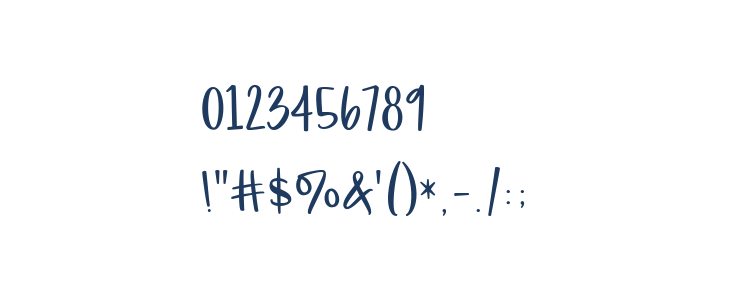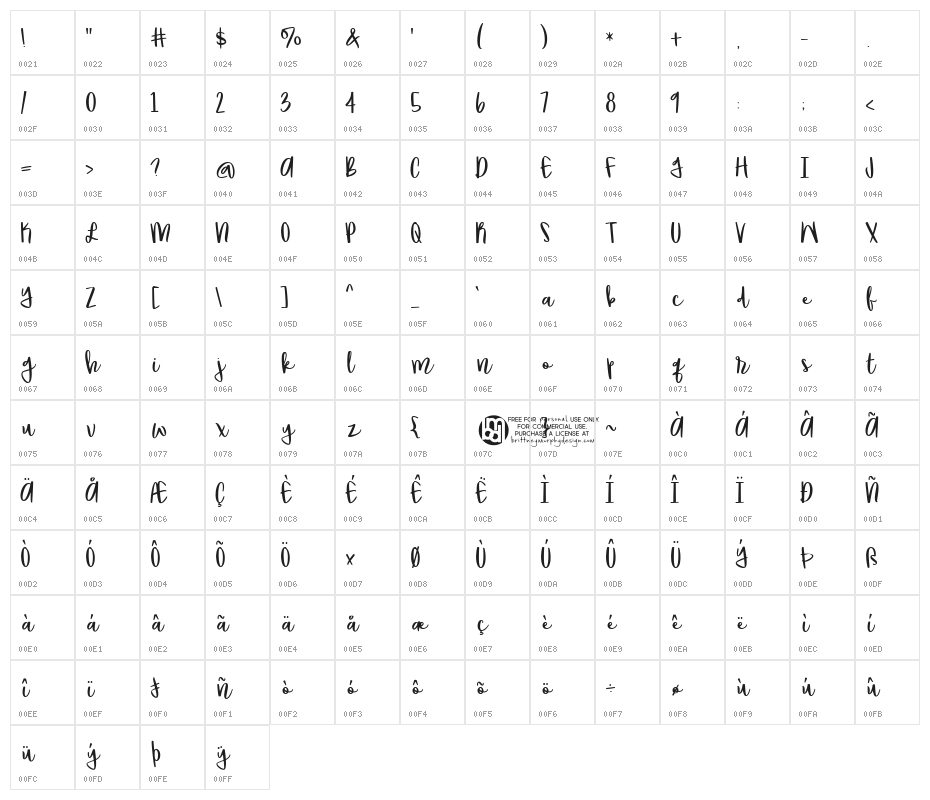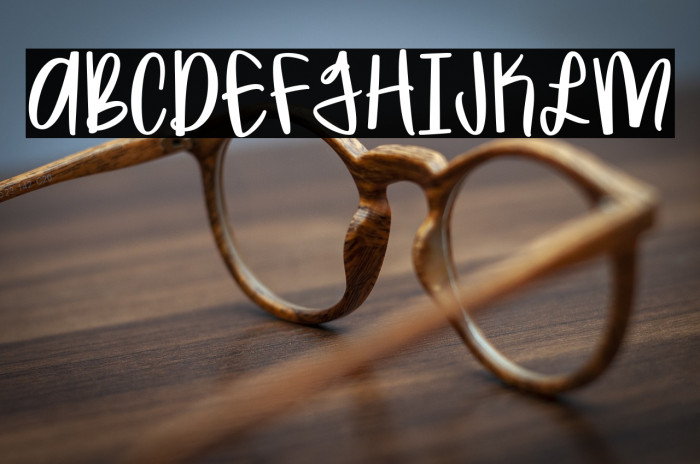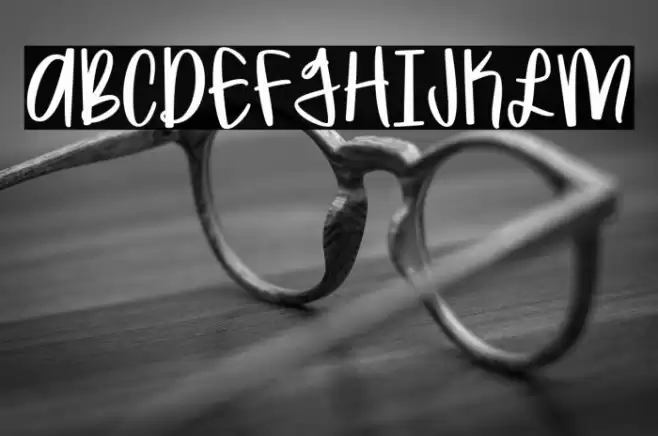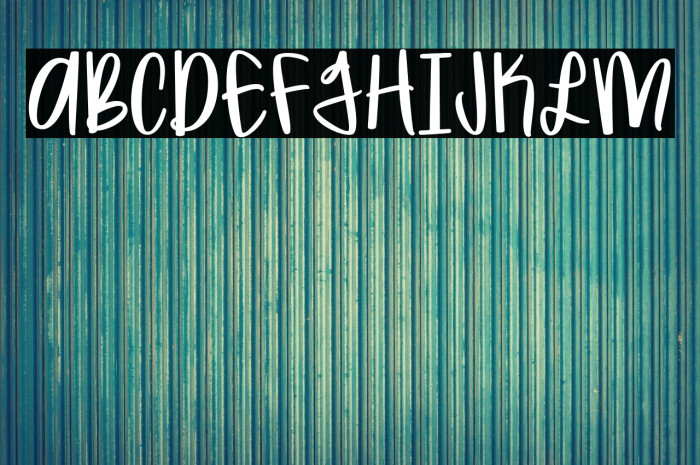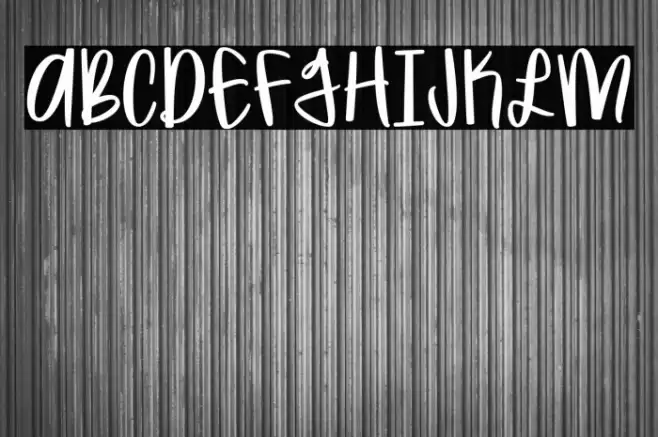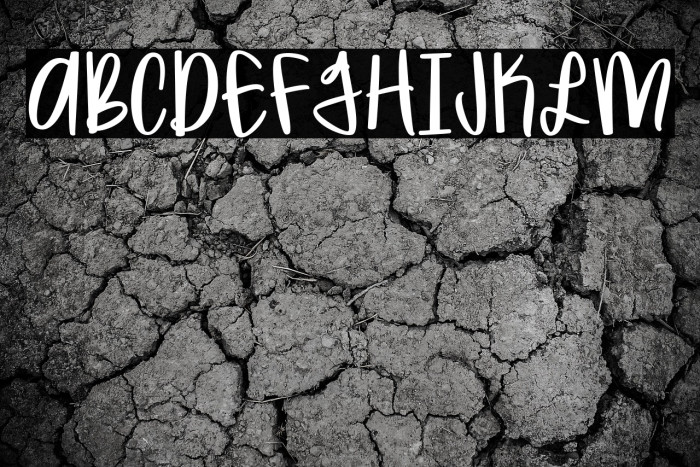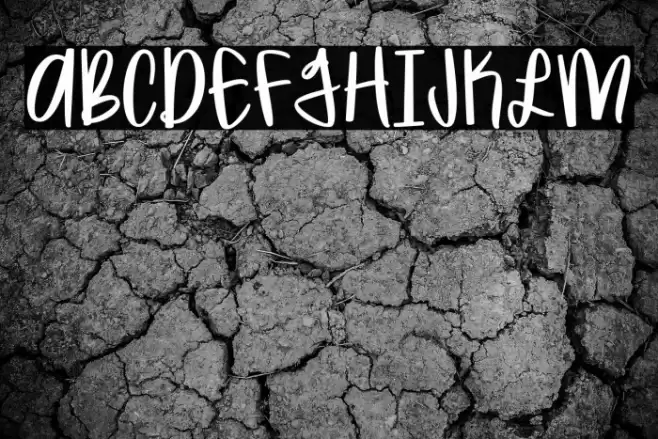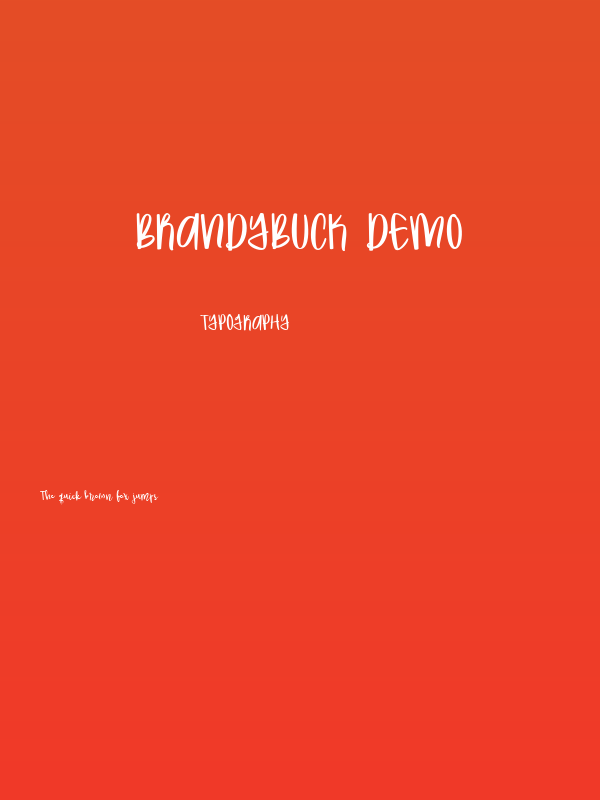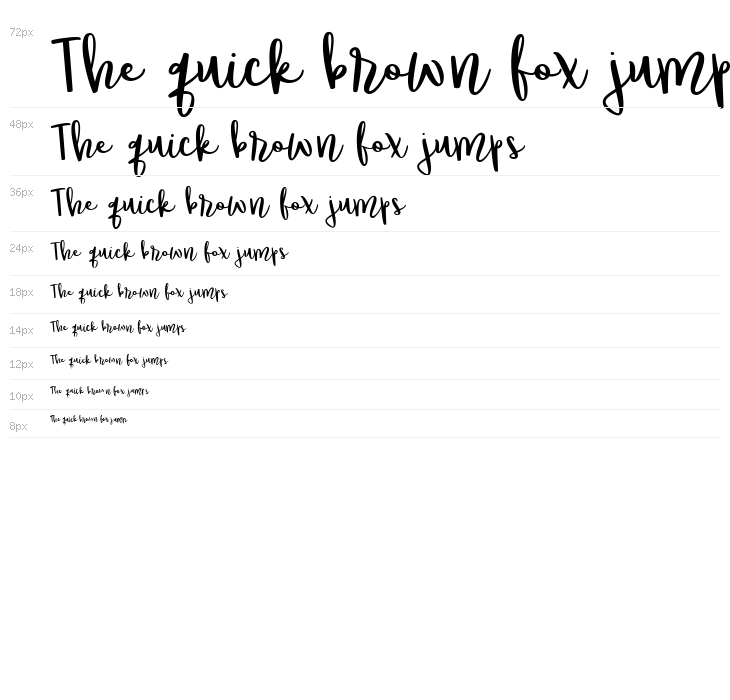
Brandybuck Demo Font
Brandybuck Demo Description
This font features a playful and energetic script style, characterized by its bold and flowing letterforms. The uppercase letters exhibit a unique blend of straight and curved lines, giving them a dynamic and lively appearance. The lowercase letters maintain a consistent rhythm with smooth, rounded edges and occasional loops, enhancing the font's whimsical charm. The numerals are clear and legible, matching the overall style with a touch of flair. Special characters are thoughtfully designed to complement the alphabet, maintaining the font's cohesive look. This font is perfect for projects that require a touch of personality and creativity.
| Proposed Projects | Ideal for greeting cards, invitations, branding, and social media graphics. |